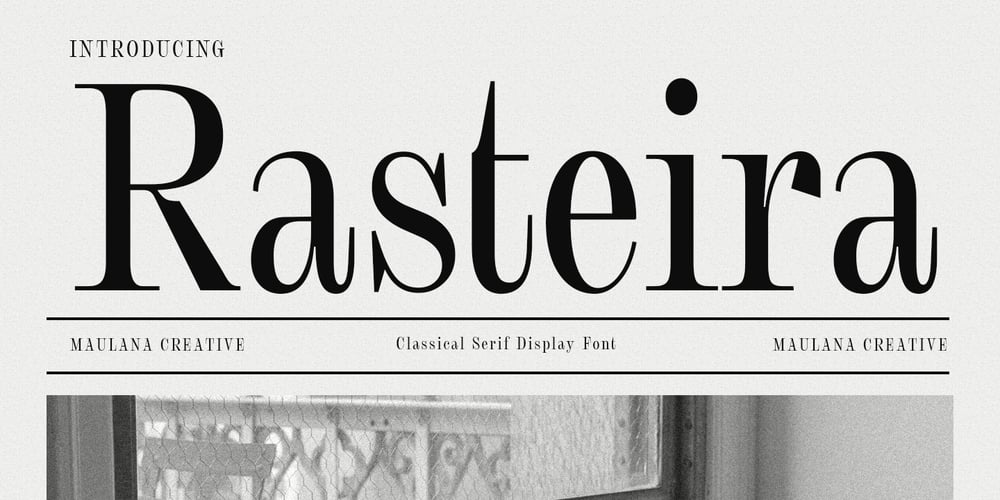
MC Rasteira Font Family was designed by Gilang Maulana and published by Maulana Creative. MC Rasteira contains 1 styles and family package options. Rasteira is an elegant classical display serif font. Regular contrast stroke, fun character with a bit of ligatures and alternates. To give you an extra creative work. Rasteira font support multilingual more than 100+ language. This font is good for logo design, Social media, Movie Titles, Books Titles, a short text even a long text letter and good for your secondary text font with script or serif. Make a stunning work with Rasteira font. Cheers, Maulana Creative